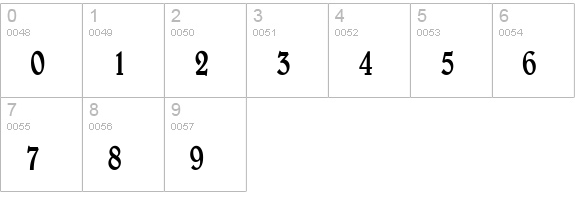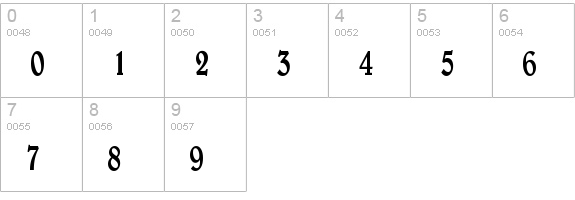
Blew Condensed Normal Font Details
Blew Condensed Normal is the standard, neutral, condensed-width variant in the Blew typeface family \xE2\x80\x94 well suited to general body text, paragraphs, and standard typographic work.
Blew Condensed Normal font is a sleek and modern typeface that exudes elegance and sophistication. With its clean lines and stylish appearance, this font is perfect for a wide range of design projects, from branding to editorial design. The condensed style of the font makes it ideal for fitting more text into limited spaces without sacrificing readability. What sets Blew Condensed Normal font apart is that it is available for free download at FontsMarket.com. This means that you can easily access and use this versatile font in your projects without any cost. Whether you're a professional designer or a hobbyist looking to elevate your creations, Blew Condensed Normal font is a fantastic choice that combines style and accessibility. Download it today and add a touch of refinement to your designs.